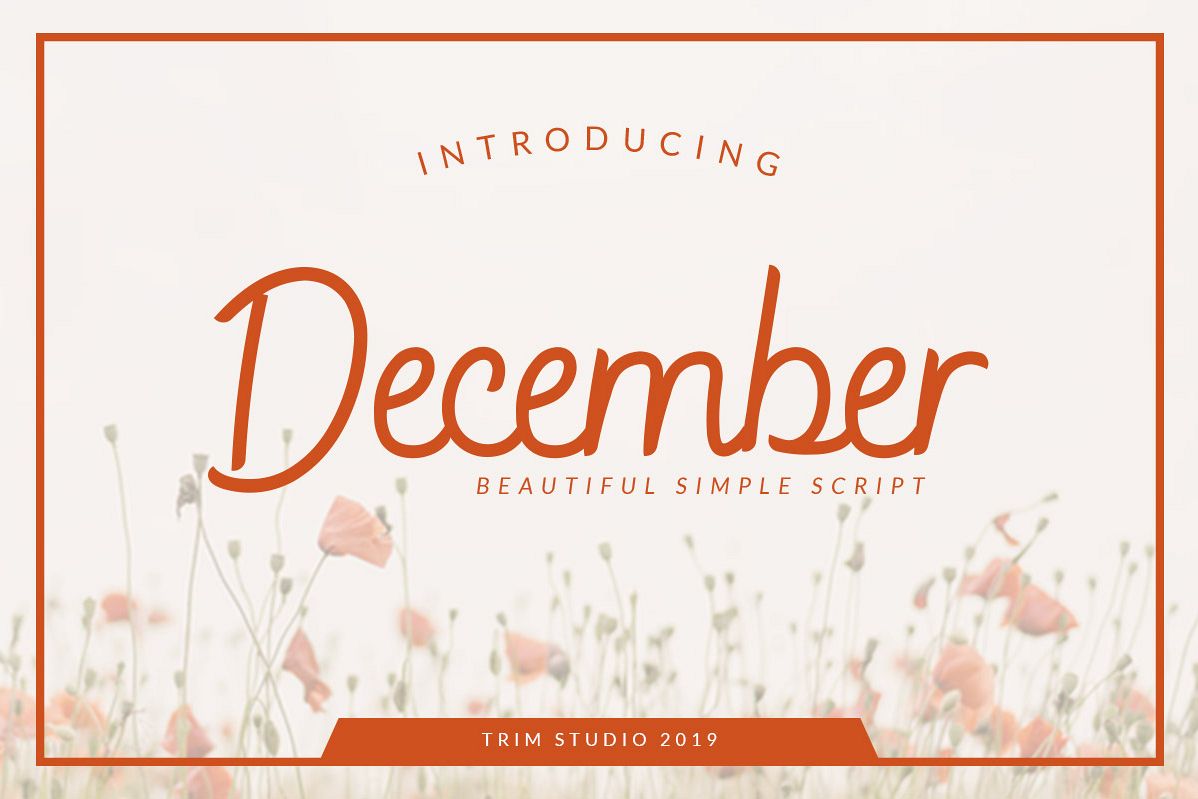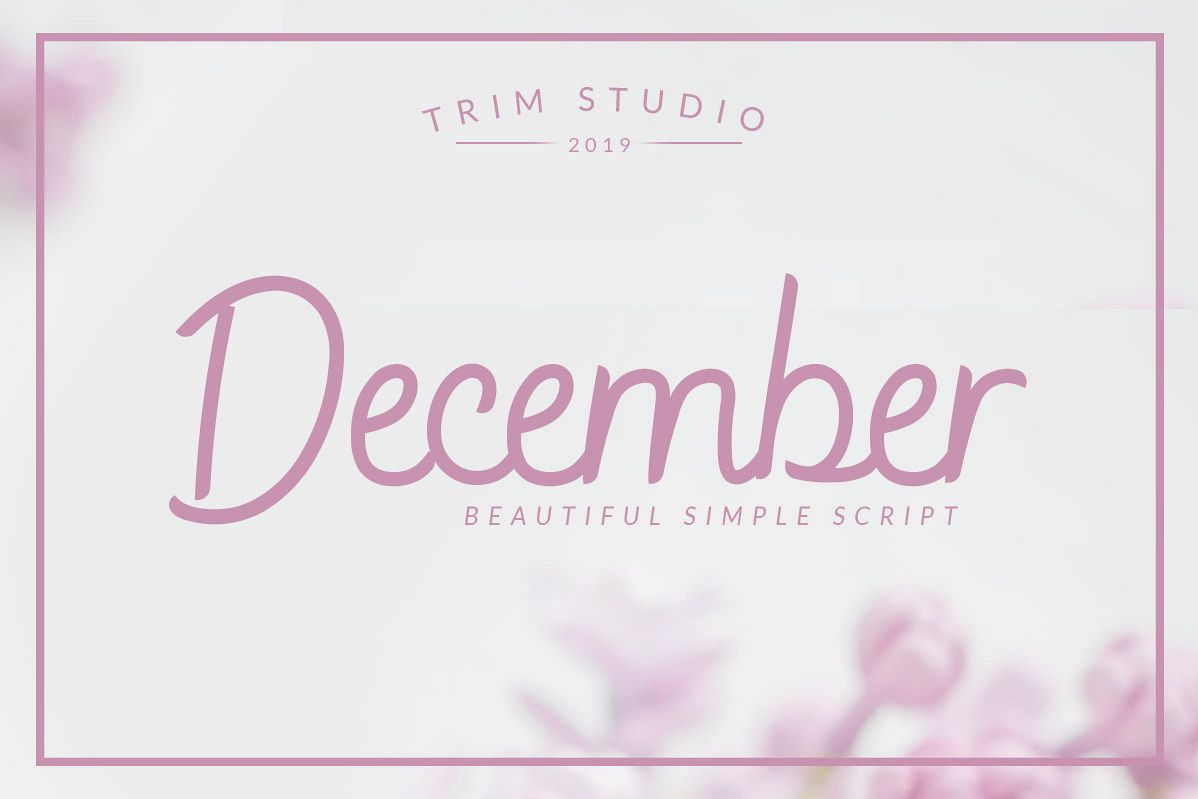
December - Sophisticated Monogram Font
The December is a beautiful simple script font. It will add a personal touch to greeting cards, branding, business cards, quotes, posters, and much more!